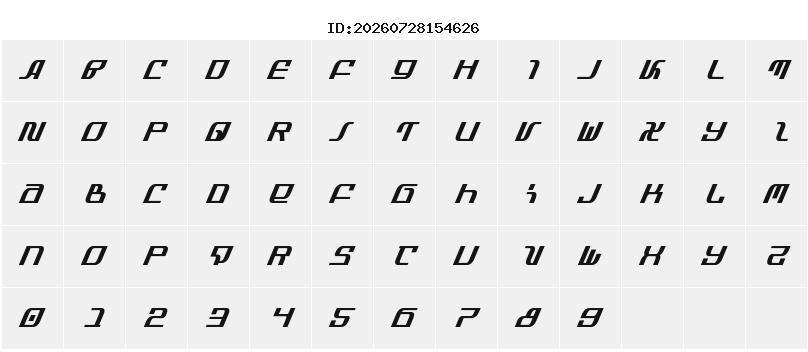
• Font Name: Infinity Formula Cond Italic
• Font Style: Cond Italic
• Font ID: Infinity Formula Cond Italic
• Full Font Name: Infinity Formula Cond Italic
About Infinity Formula Cond Italic.ttf
Infinity Formula Cond Italic.ttf is a modern, elegant sans-serif font designed for ultimate readability and visual harmony. Perfect for branding, headlines, web design, and print materials.